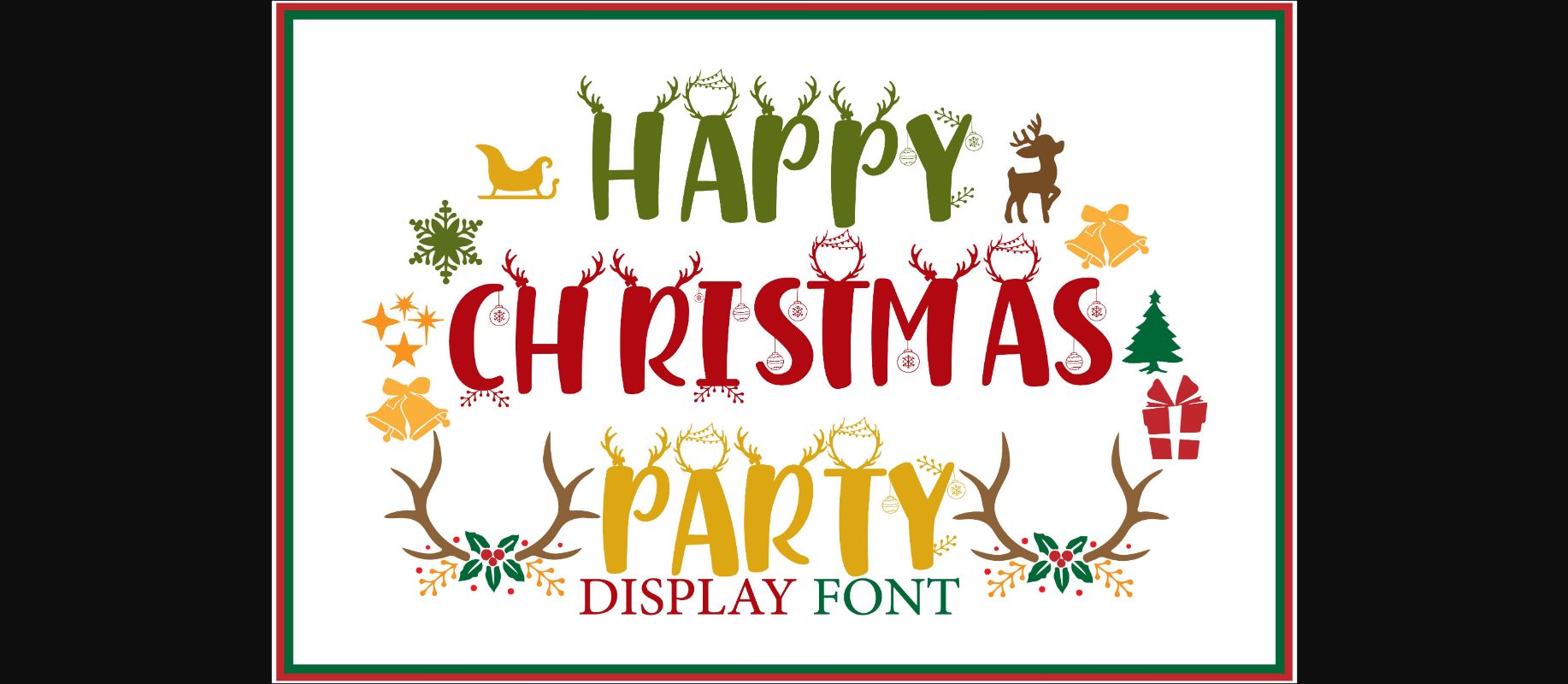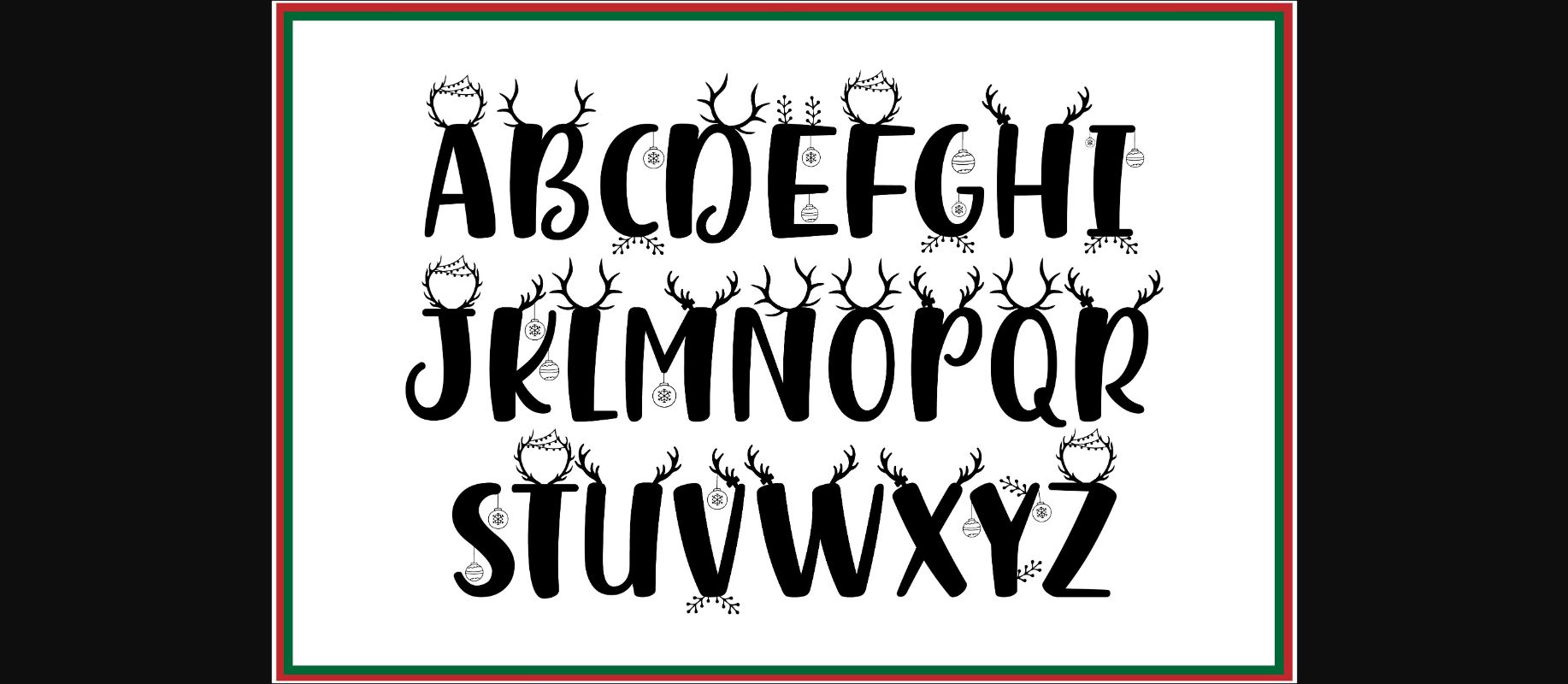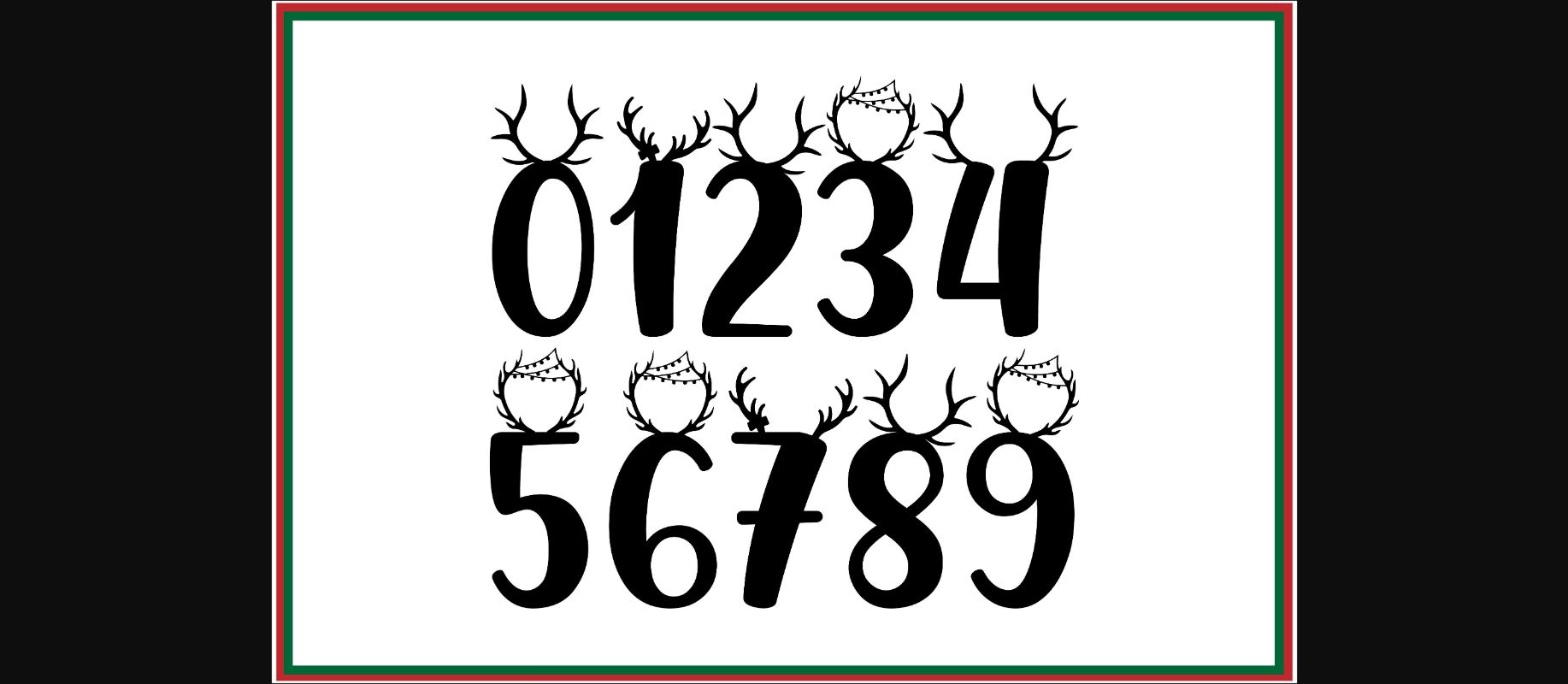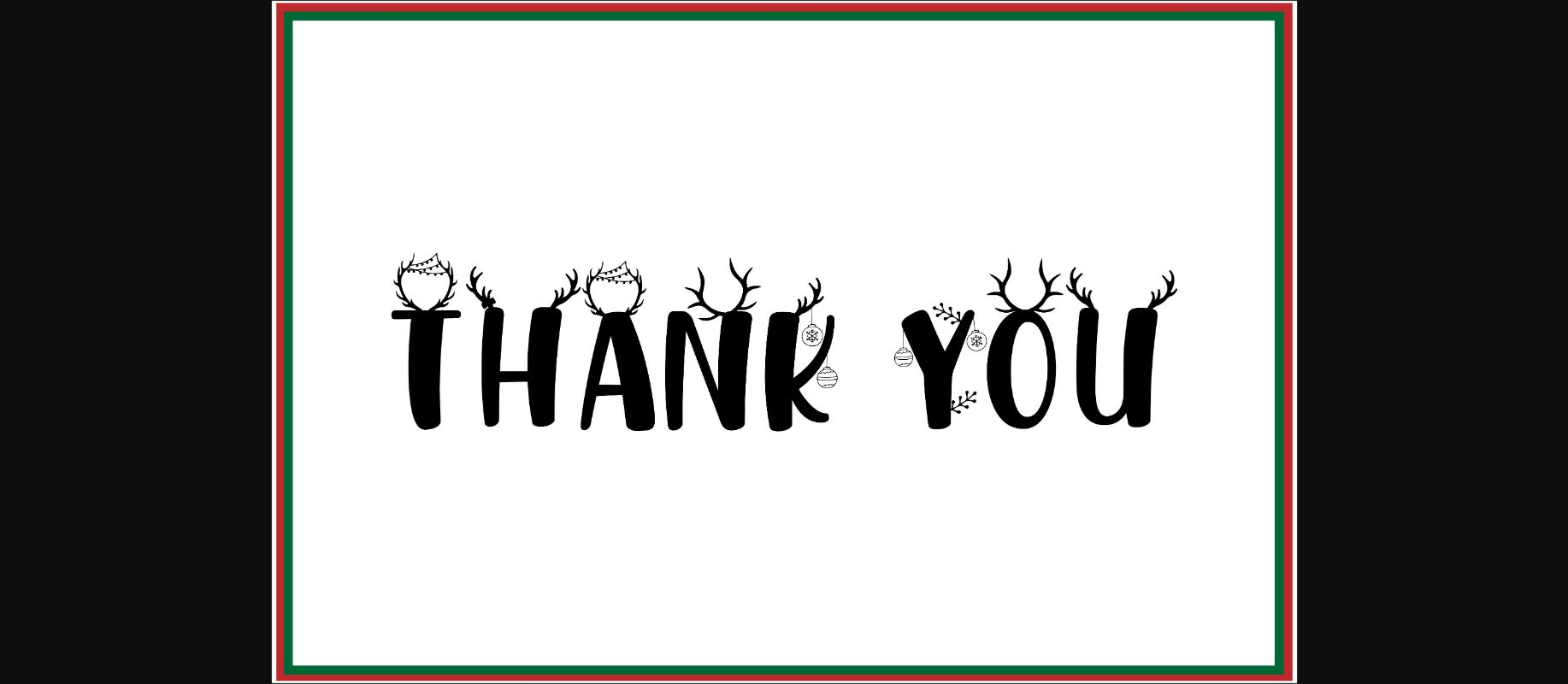
About Happy Christmas Party Font
Happy Christmas Party is a cool and original-looking decorative font. Whether you are using it for cartoon-related designs, children’s games, quotes, titles, brand names, book covers, posters, or just any creation that requires a touch of joy, this font is a great choice.